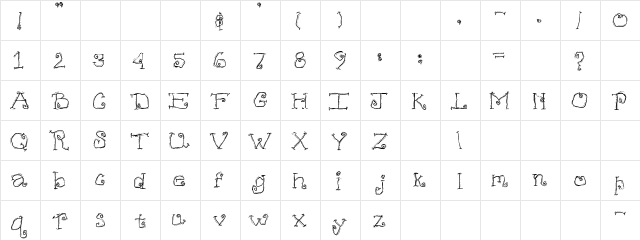
SBC Funky Flourished Font Preview
Design Context for SBC Funky Flourished Typeface
SBC Funky Flourished trades formality for fun, with bouncy, characterful letterforms that bring warmth and energy to any project.
Font Pairing: Pairs well with a rounded or humanist sans for body copy, maintaining the friendly tone without relying on SBC Funky Flourished to carry extended reading.
Pro Tip: Use SBC Funky Flourished at larger display sizes where its expressive character can land. Pair with a clean, simple sans for body copy to maintain readability.